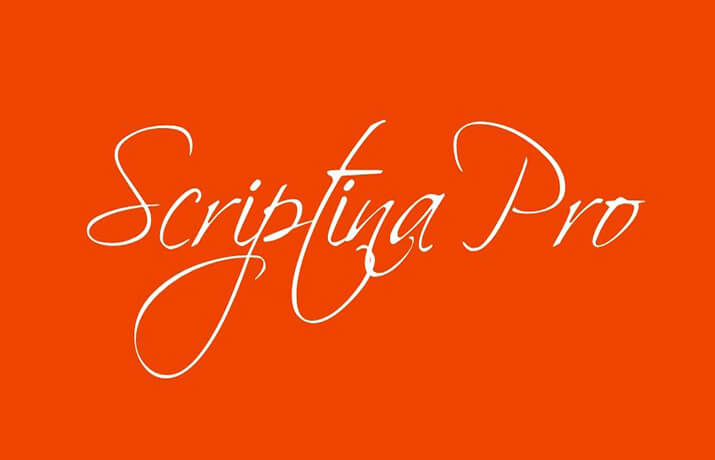
Hello everyone, we are happy to introduce a new font family called Scriptina Pro Font which is an elegant light handwritten script typeface ideal for signatures, wedding cards, etc.
It has gained a lot of popularity in the design industry due to its slanted and thin shape. It just comes in a unique and beautiful regular style with thin strokes and script letters.
This remarkable typeface is also perfect for script designs that are suitable for the calligraphy design industries.
Font Name: | Scriptina Pro Font Family |
Style: | Calligraphy, Script, Typeface |
Font Designer: | CheapProFonts |
This font is the perfect choice for posters, fashion magazines, cosmetics, card printing, business cards, wedding invitations, logotypes, photo collages, banner designs, postcard designs, advertisements, and other personal designing purposes.
This font is contained in a single style and this style also consists of currency symbols, uppercase letters, punctuations, and custom icons.